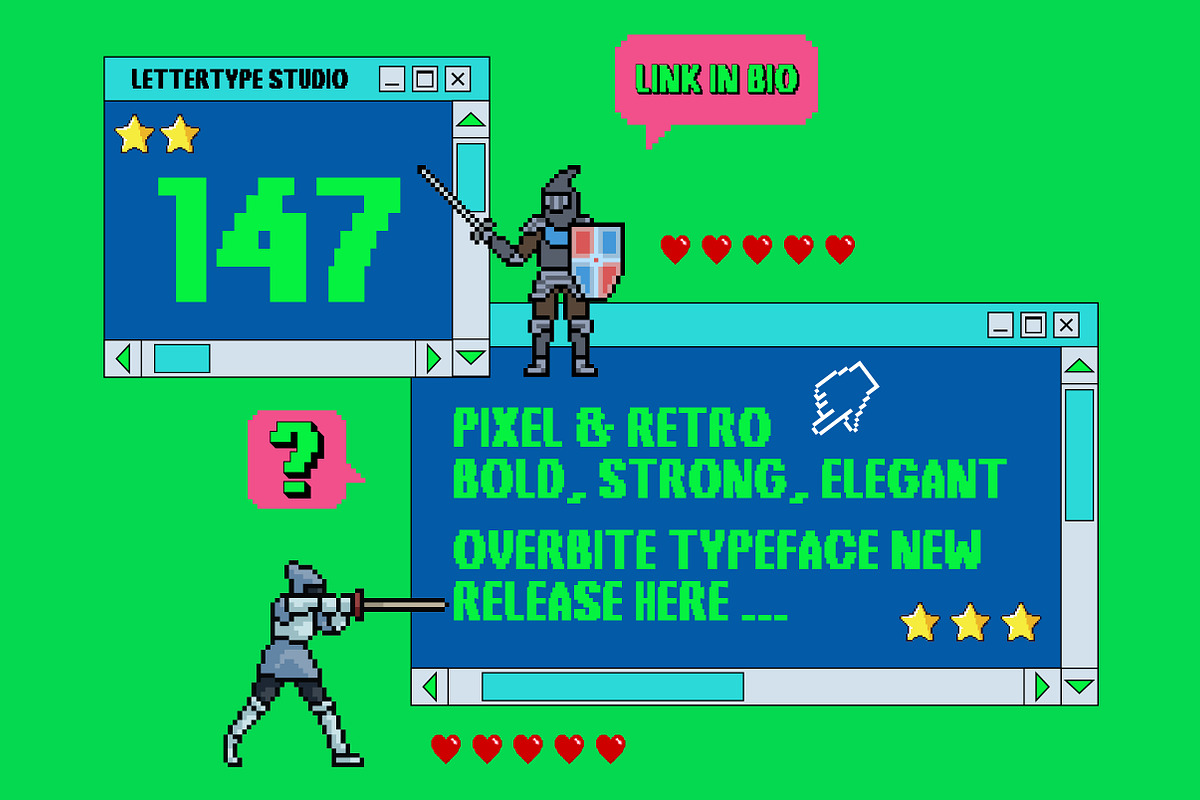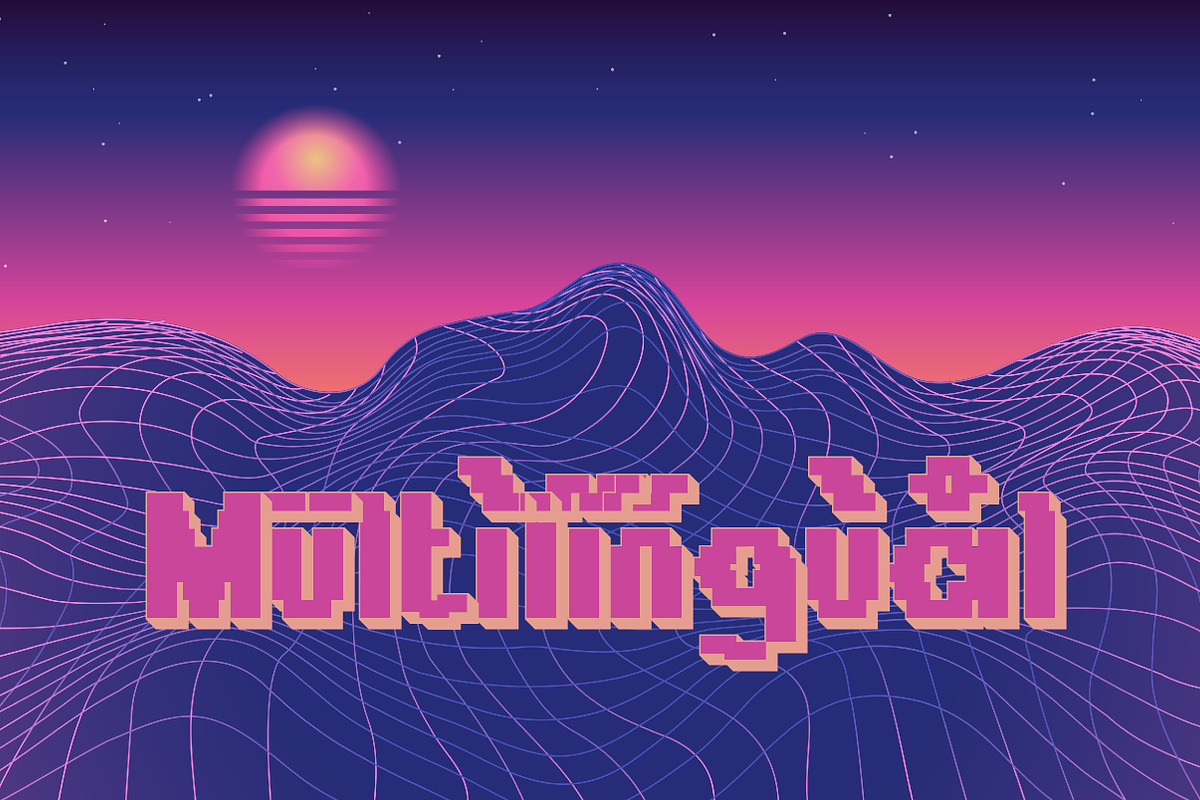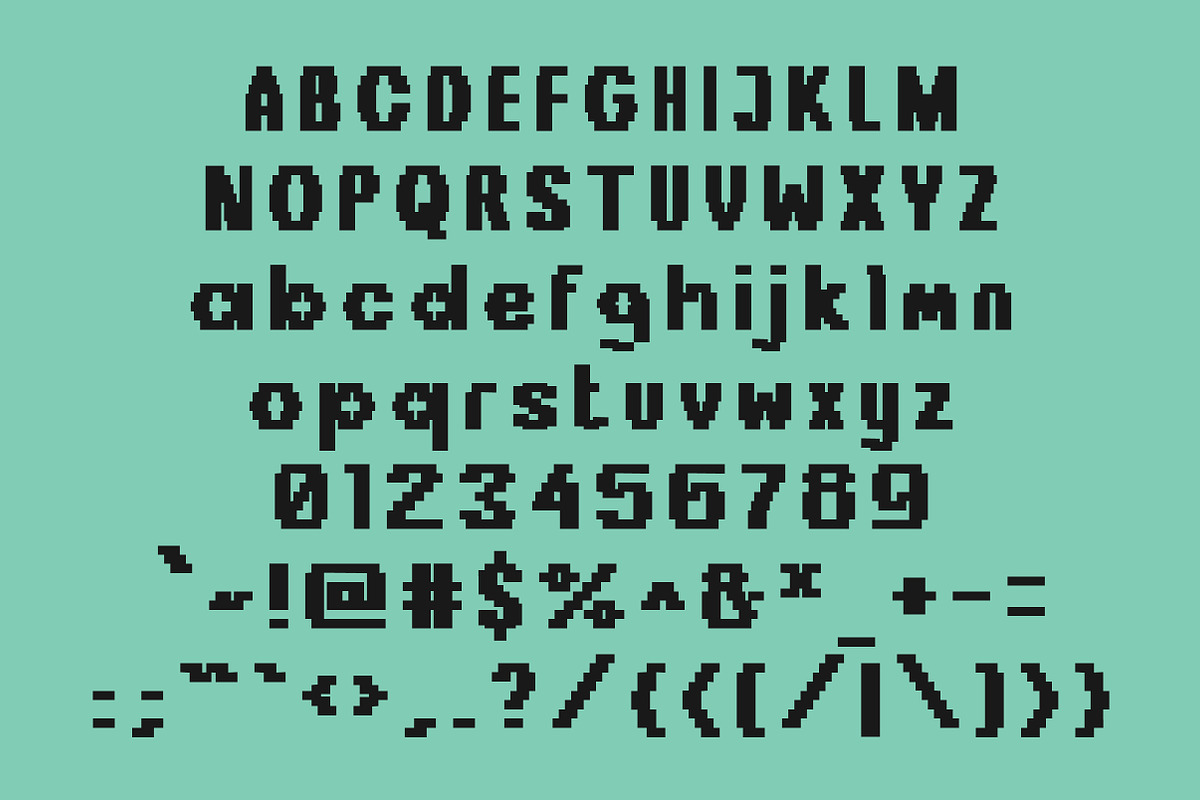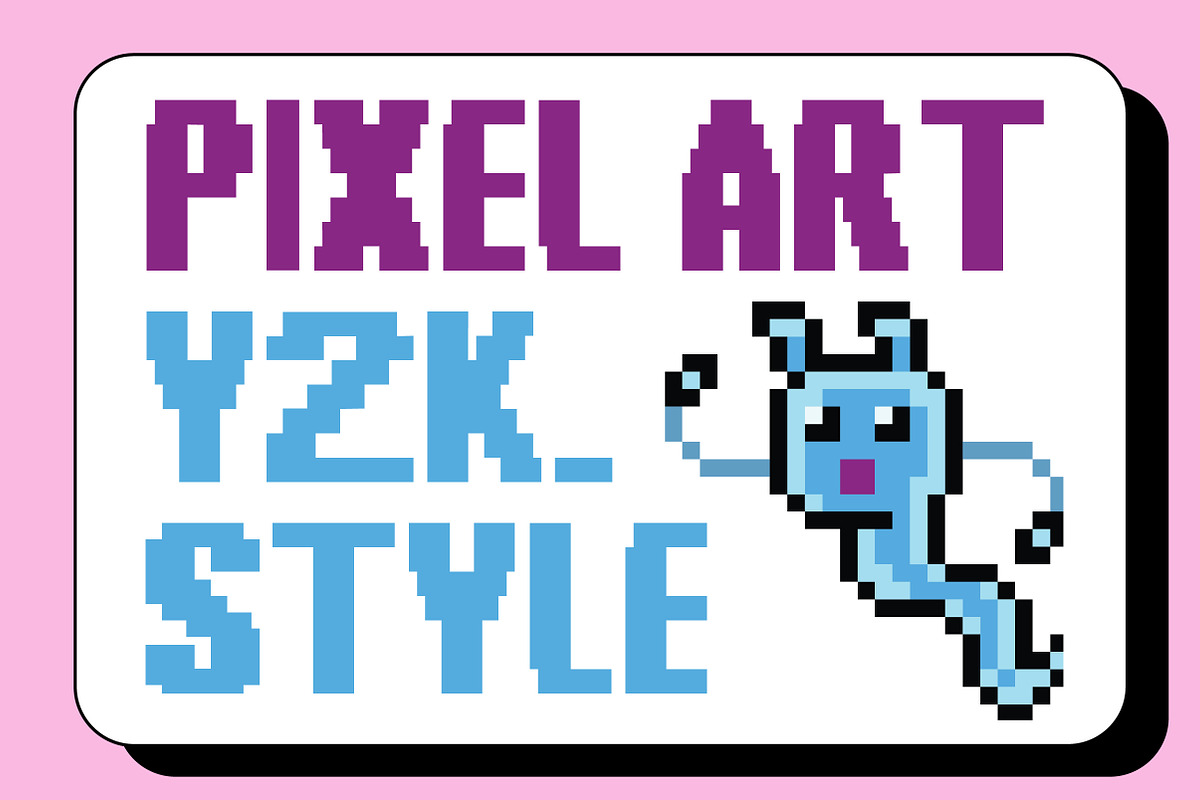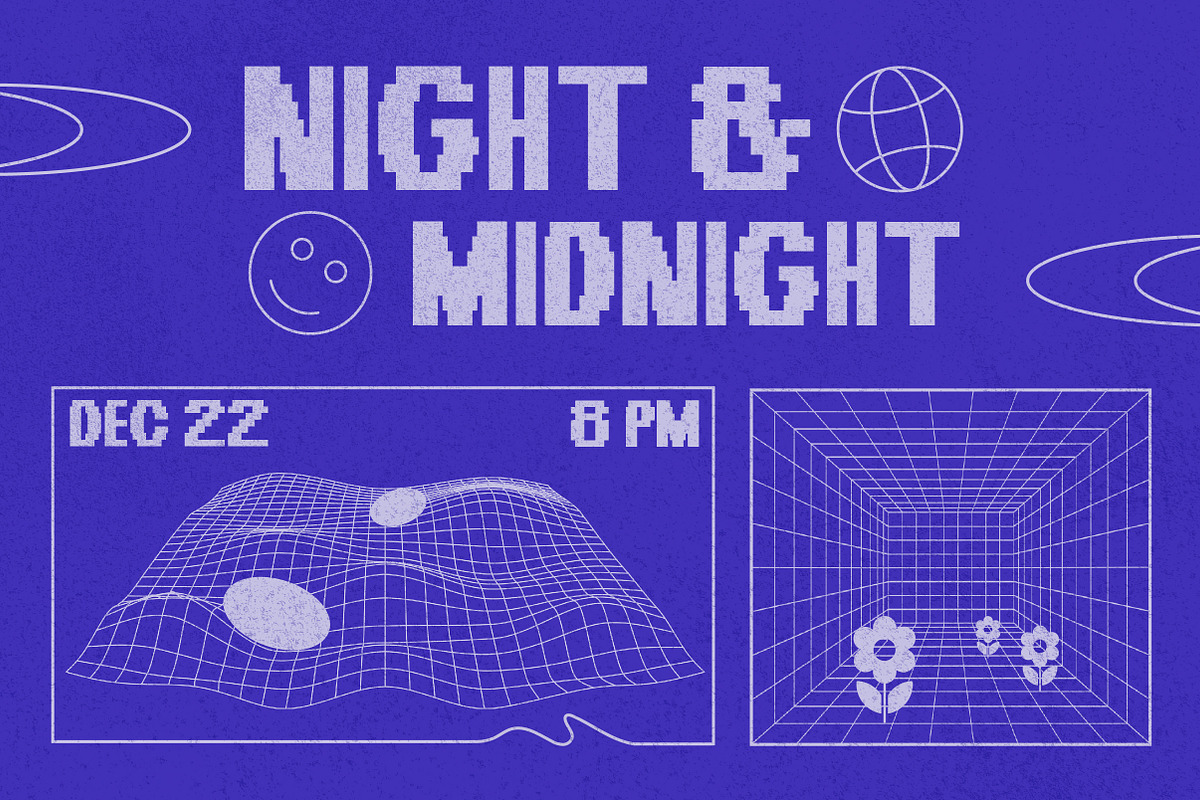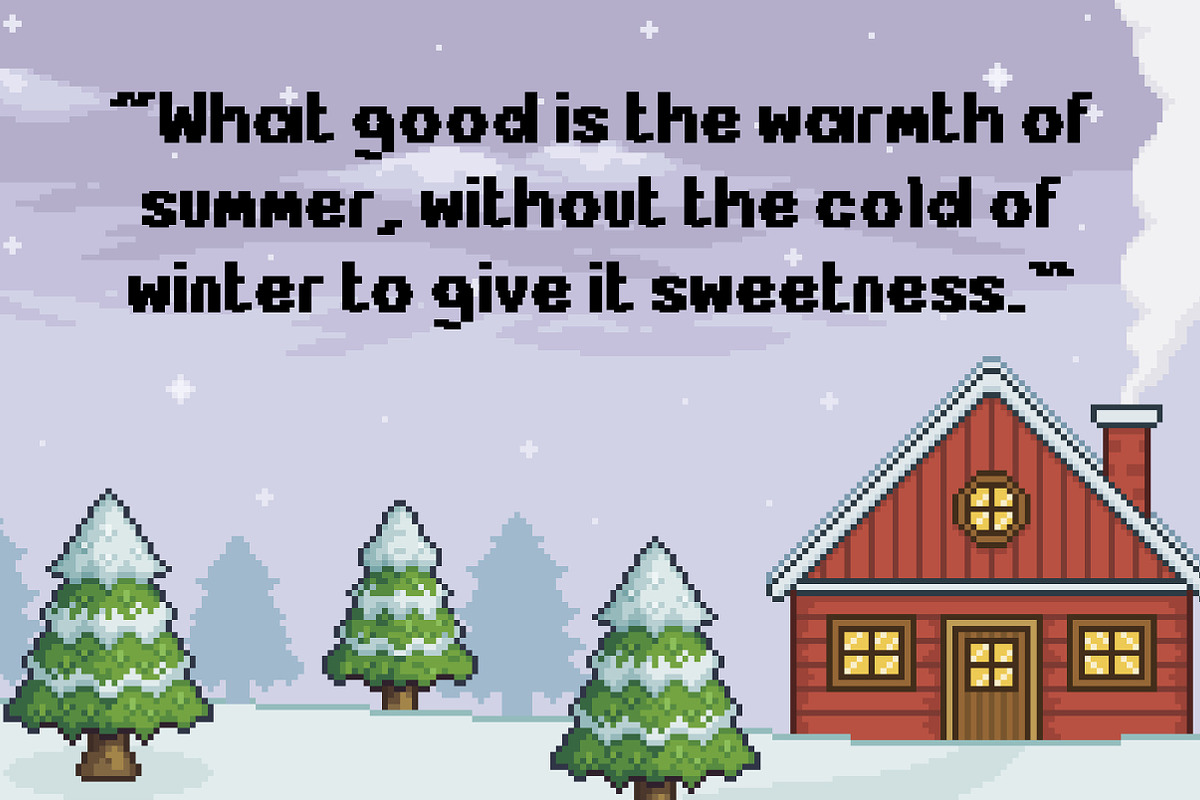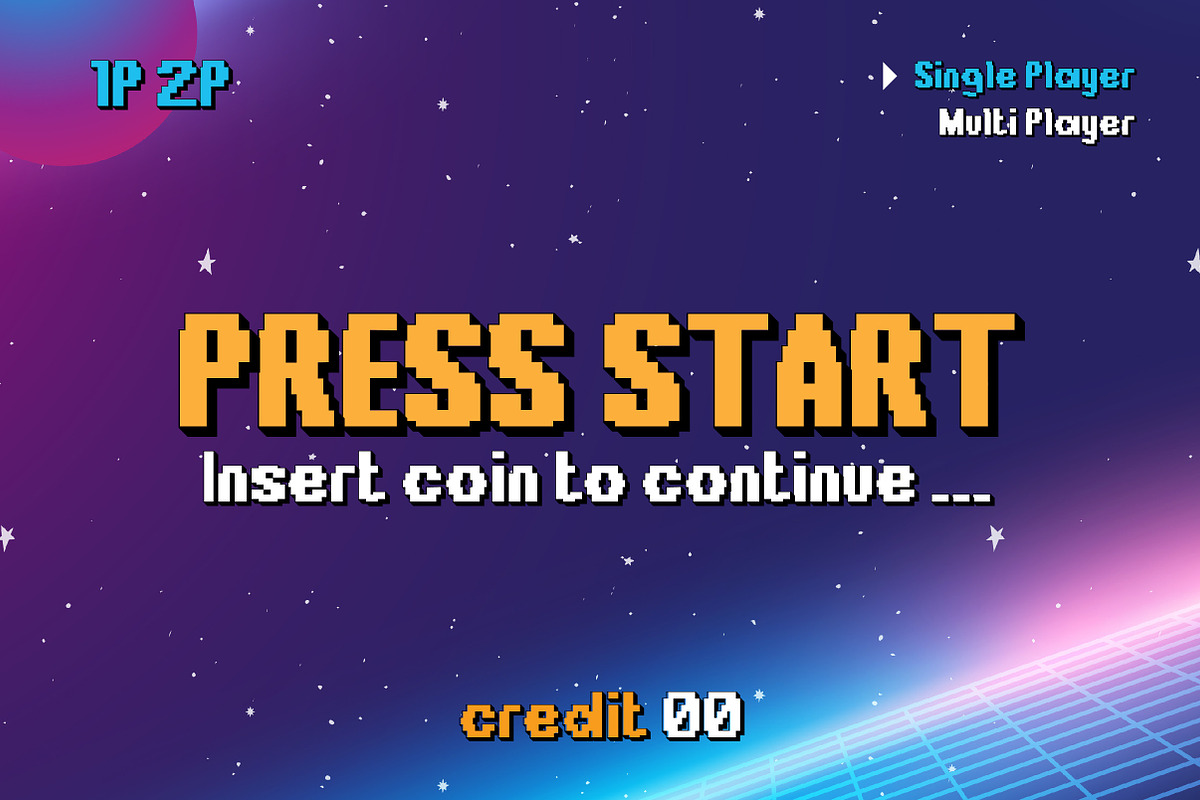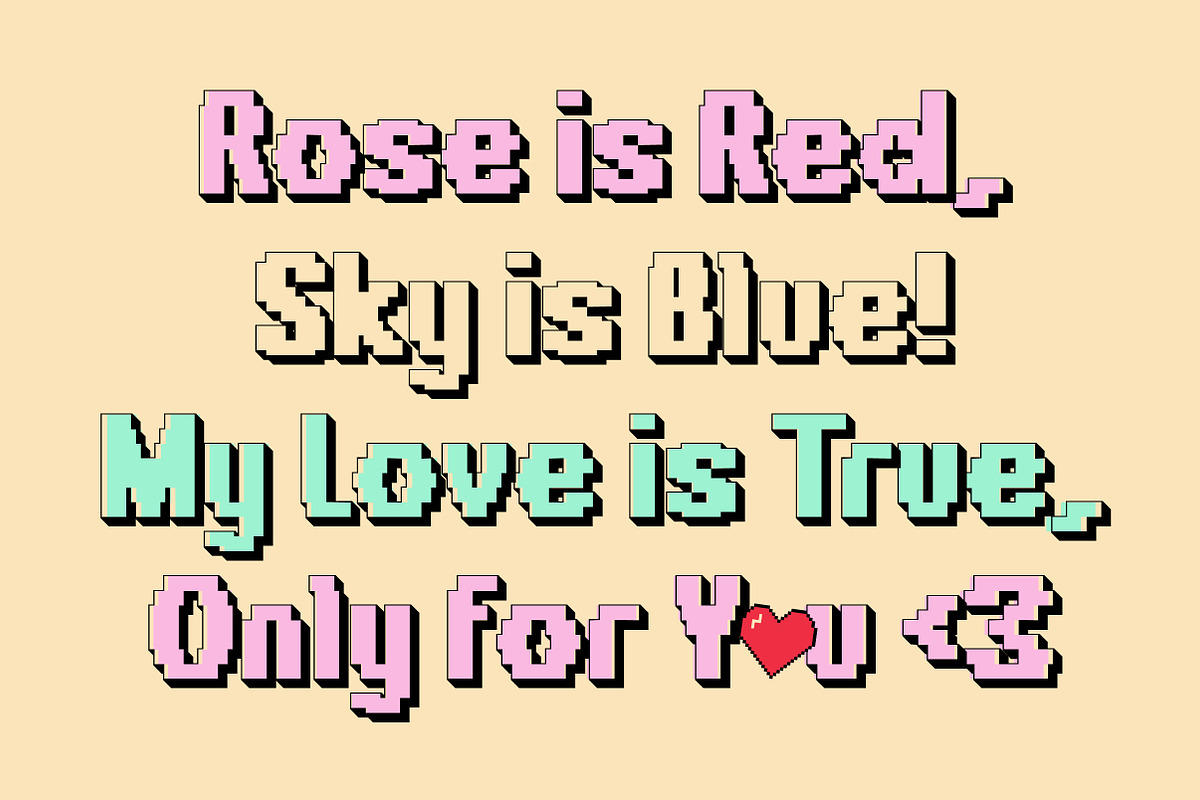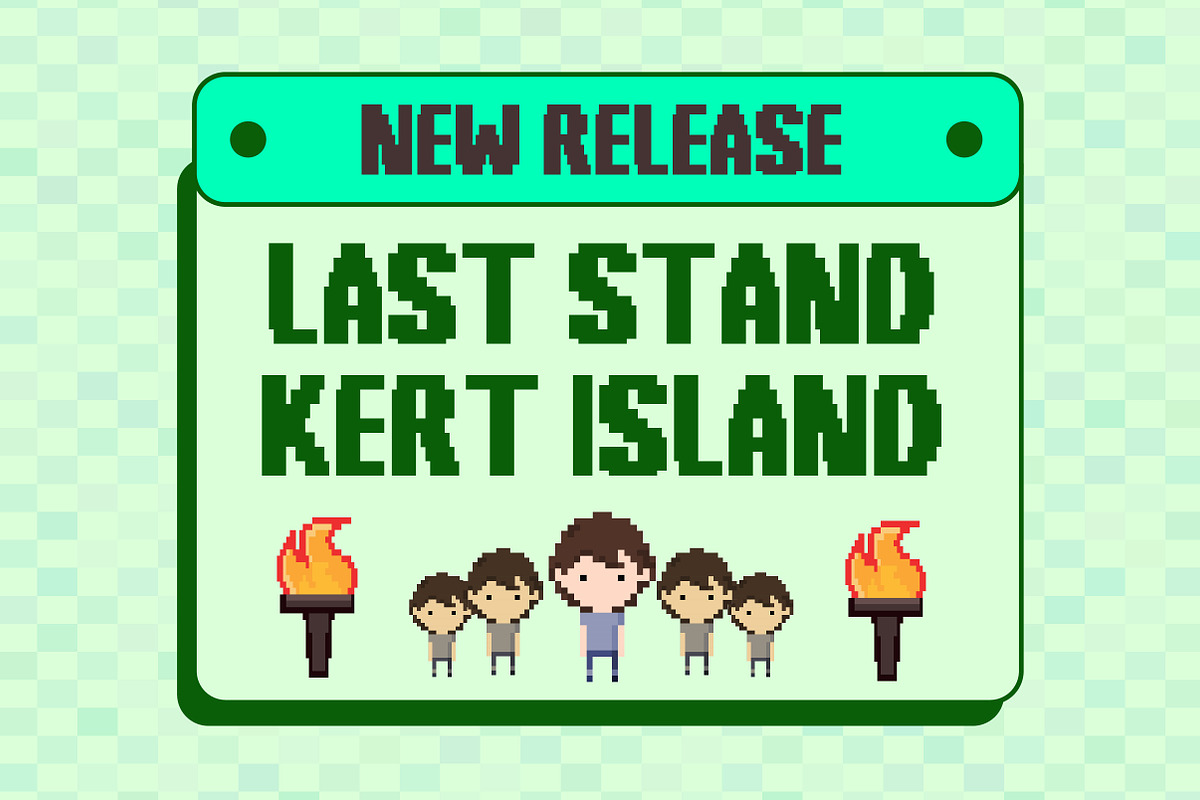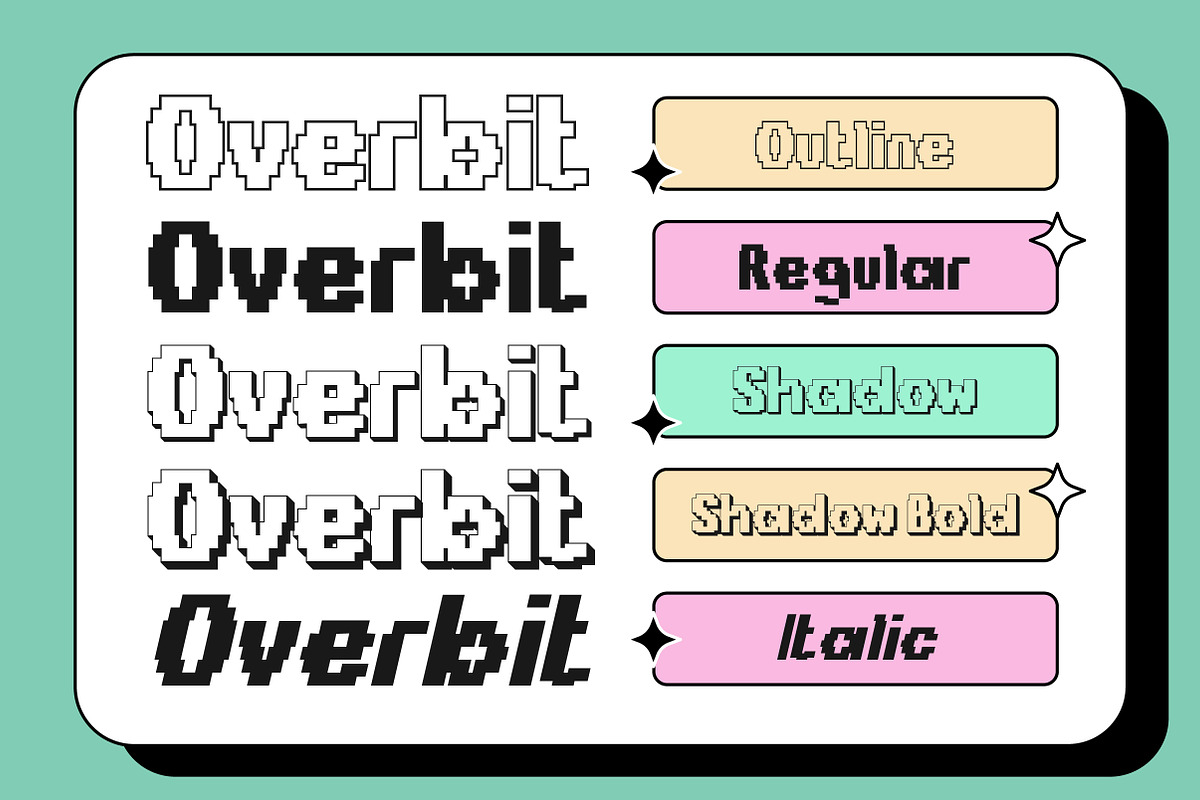
Overbit Bold & Strong Edgy Y2K Pixel
Overbit is a bold, strong, and edgy pixel Y2K font that combines nostalgic 80s and 2000s styles, perfect for bold, retro-inspired designs. These versatile fonts, ideal for headlines, logos, pixel games, 8-bit game interfaces, poster, website, and editorial use, bring a playful yet impactful touch to any project.
Overbit Font, offering multiple styles and multilingual support, elevate your digital and print creations with a unique vintage flair. This font works in large and small sizes and includes five styles: regular, outline, italic, shadow, and shadow bold.
- Lowercase & Uppercase
- Alternates & Ligature
- Font Family (5 Styles)
- Retro game interfaces, pixel art & Y2K aesthetics
- Bold logos, digital posters, and nostalgic branding
- 80s/2000s-themed social media & website headers
- Motion graphics, album covers & tech visuals
- Playful creative projects with vintage flair